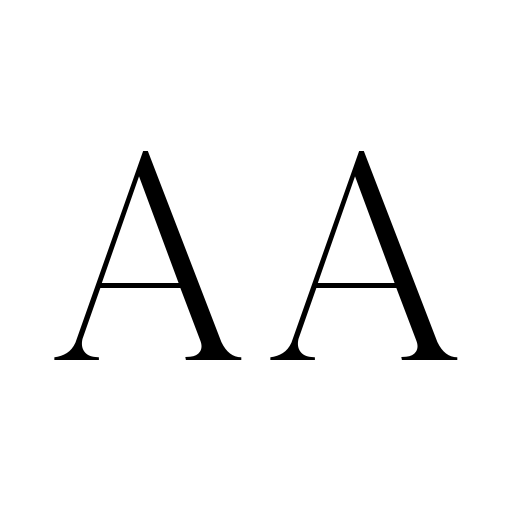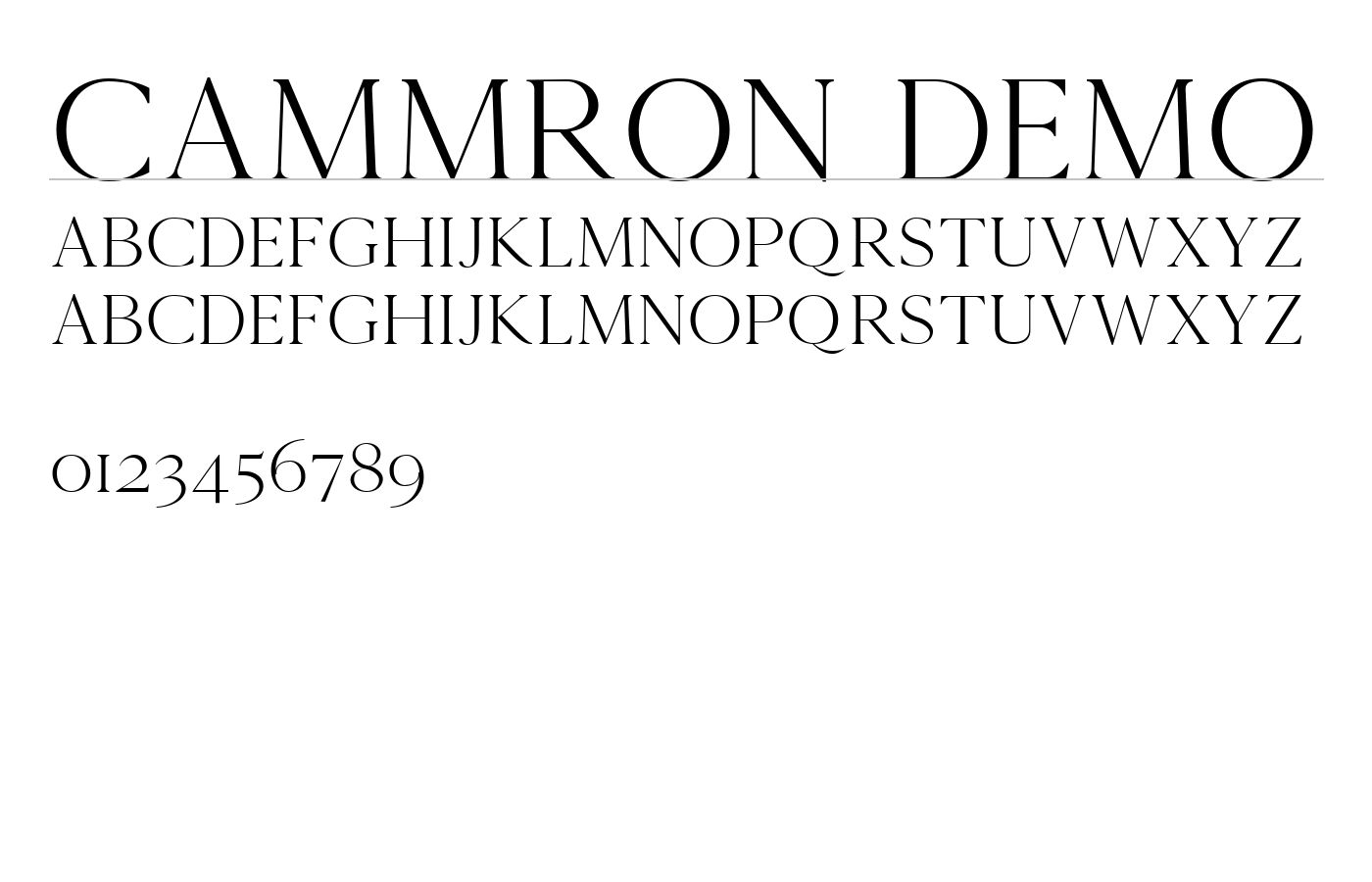
Cammron is an elegant serif font with a refined Didone style, featuring high contrast between thick and thin strokes and delicate, thin serifs. Its tall, slender letterforms and unique details like the curved Q tail create a sophisticated and graceful look, ideal for luxury branding, editorial headlines, and stylish packaging. This font works best where a sense of classic refinement and modern elegance is needed.
Cammron Font
About Cammron Font